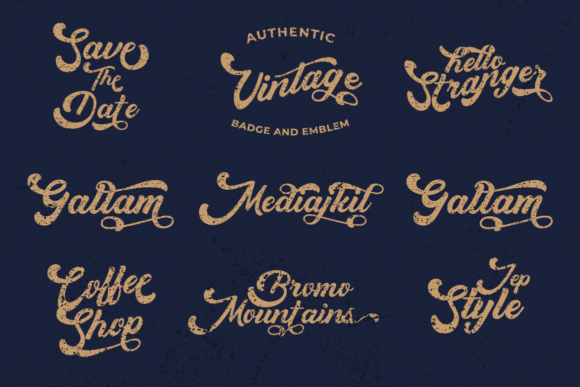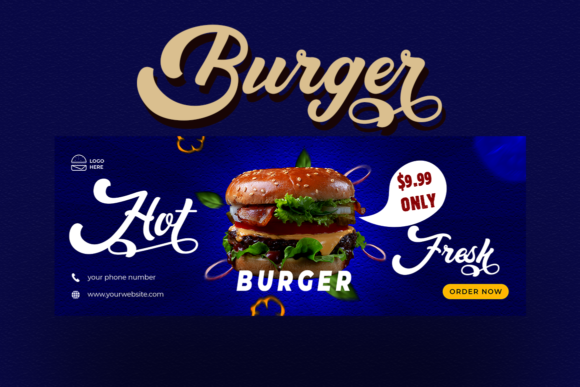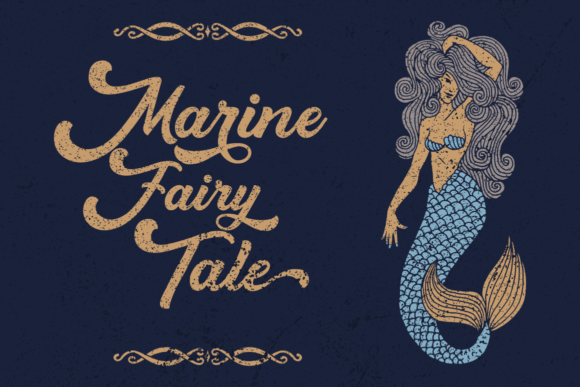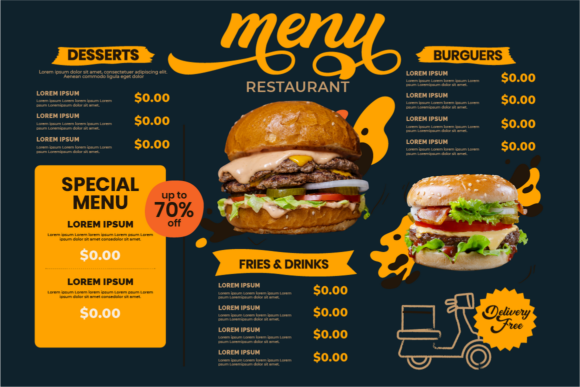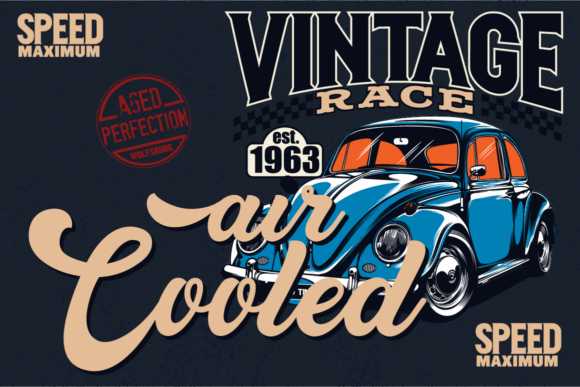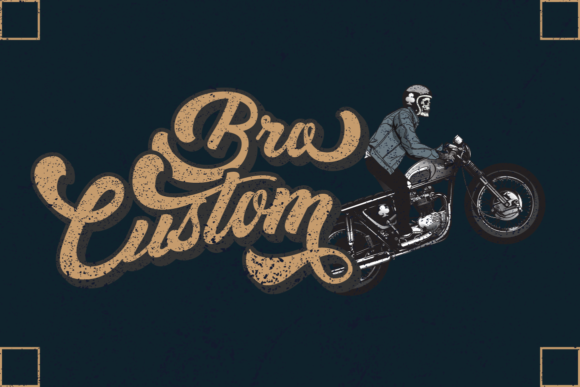
Introduction to Macrosty Font
Remember the thrill of discovering a long-forgotten vintage shop, filled with dusty trinkets and relics from a bygone era? As a designer, you know that moment of discovery can spark a wave of inspiration for your next creative project. The Macrosty Font is that kind of discovery – a vintage script font that adds a touch of nostalgia and whimsy to any design.
With its classic feel and retro aesthetic, the Macrosty Font is a valuable resource for designers seeking to add a high-quality, vintage vibe to their work. Whether you’re creating a logo, branding package, or fashion label, this font is sure to bring a unique touch to your design. And with its transparent background and PUA encoding, accessing the font’s special features – including alternate glyphs and ligatures – is easier than ever.
Key Features of Macrosty Font
- High-quality design with a unique, modern aesthetic suitable for creative projects
- Features a large character set with over 500 glyphs, making it suitable for a wide range of creative projects
- Supports a wide range of languages, including Latin, Cyrillic, and Greek alphabets
Honest Review: Macrosty Font
I recently came across the Macrosty Font while searching for a design resource to elevate my creative project. As a designer, I was excited to try it out and see how it would fit into my design workflow.
- High-quality typography: The Macrosty Font boasts clean lines and a sophisticated look that makes it perfect for a variety of design applications.
- Transparent background: The transparent background of this font makes it easy to layer and manipulate, giving designers the flexibility they need to create unique and eye-catching designs.
- Limited character set: The Macrosty Font only includes a limited character set, which may not be ideal for designers who need a font with a wide range of characters.
- Not suitable for small text: Due to its large size and bold style, the Macrosty Font may not be the best choice for small text or body copy.
Overall, I was impressed with the Macrosty Font and would definitely recommend it for designers looking for a high-quality, unique font to add to their design arsenal.
Introduction to Macrosty Font
Macrosty Font is a high-quality design resource that offers a unique and creative font style, perfect for any project. With its transparent background, Macrosty Font is an excellent choice for designers looking to add a touch of elegance to their work.
Tips for Getting the Most Out of Macrosty Font
Here are some tips to help you get the most out of Macrosty Font:
- Use Macrosty Font in combination with other high-quality design elements to create a cohesive and visually appealing design.
- Experiment with different font sizes and styles to find the perfect balance for your project.
- Use Macrosty Font in creative projects, such as brochures, business cards, and social media graphics.
Common Use Cases for Macrosty Font
Here are some common use cases for Macrosty Font:
- Social media graphics and advertisements
- Bro
Alternatives to Macrosty Font
Great Vibes Font is a high-quality, elegant script font suitable for creative projects that require a touch of sophistication. It’s perfect for designing invitations, wedding cards, or any other design resource that demands a refined look.
Yes, the Macrosty Font is designed to be used in high-quality printing applications. The font is optimized for use at large sizes and includes detailed, high-resolution glyphs. However, please note that the quality of the print will also depend on the printing equipment and settings used.